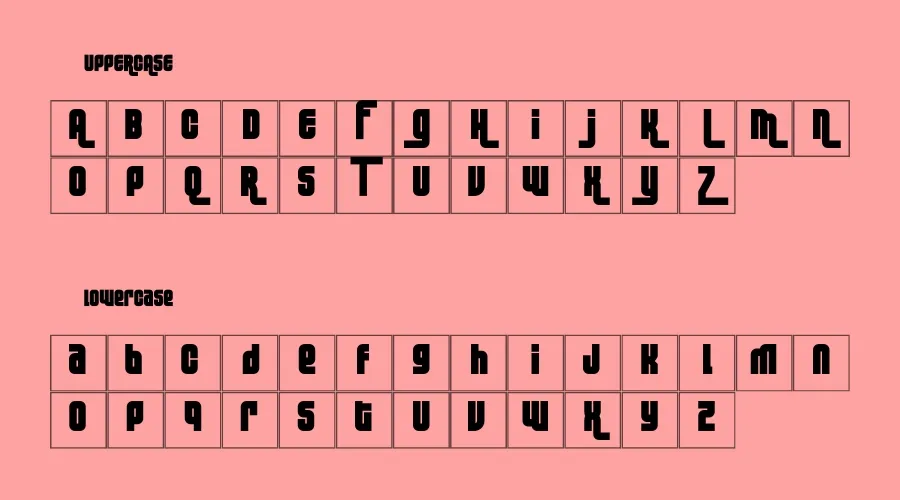
Lakmus Font
About Lakmus Font
The Lakmus Font is a famous and elegant texture with a unique texture look impression for visitors. This stunning typeface is under the category of basic fancy and looks like the Groovy texture family. It was designed by Fenotype with trendy texture shapes.
You may use this font with falcons font and make new trendy projects. This means that you can mix and match the various font styles to create the perfect look for your project. It can also be used for a variety of purposes, from titles and logotypes to text and body copy.